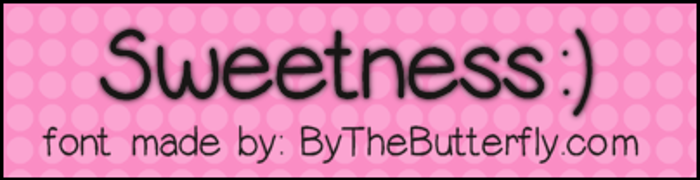
Sweetness Font
Sweetness is the "sister" of my NESS font... however, Sweetness is a tad more bubbly. The letters are curved a bit more, and the line height is slightly shorter :)
Simple. Elegant. What's not to like about this set?